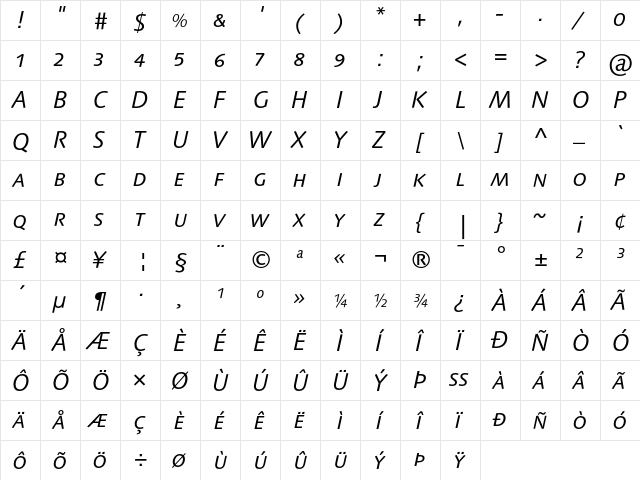
LinotypeSyntaxSC Italic Font Preview
LinotypeSyntaxSC Italic
LinotypeSyntaxSC Italic Font Details
Design Context for LinotypeSyntaxSC Typeface
LinotypeSyntaxSC offers clean, dependable letterforms without strong stylistic allegiance, making it a practical choice for designers who need flexibility. Its italic angle brings a sense of urgency and motion to the letterforms.
Pro Tip: Try LinotypeSyntaxSC for annotation and caption copy alongside an upright companion — the contrast in angle creates a dynamic but ordered typographic system.